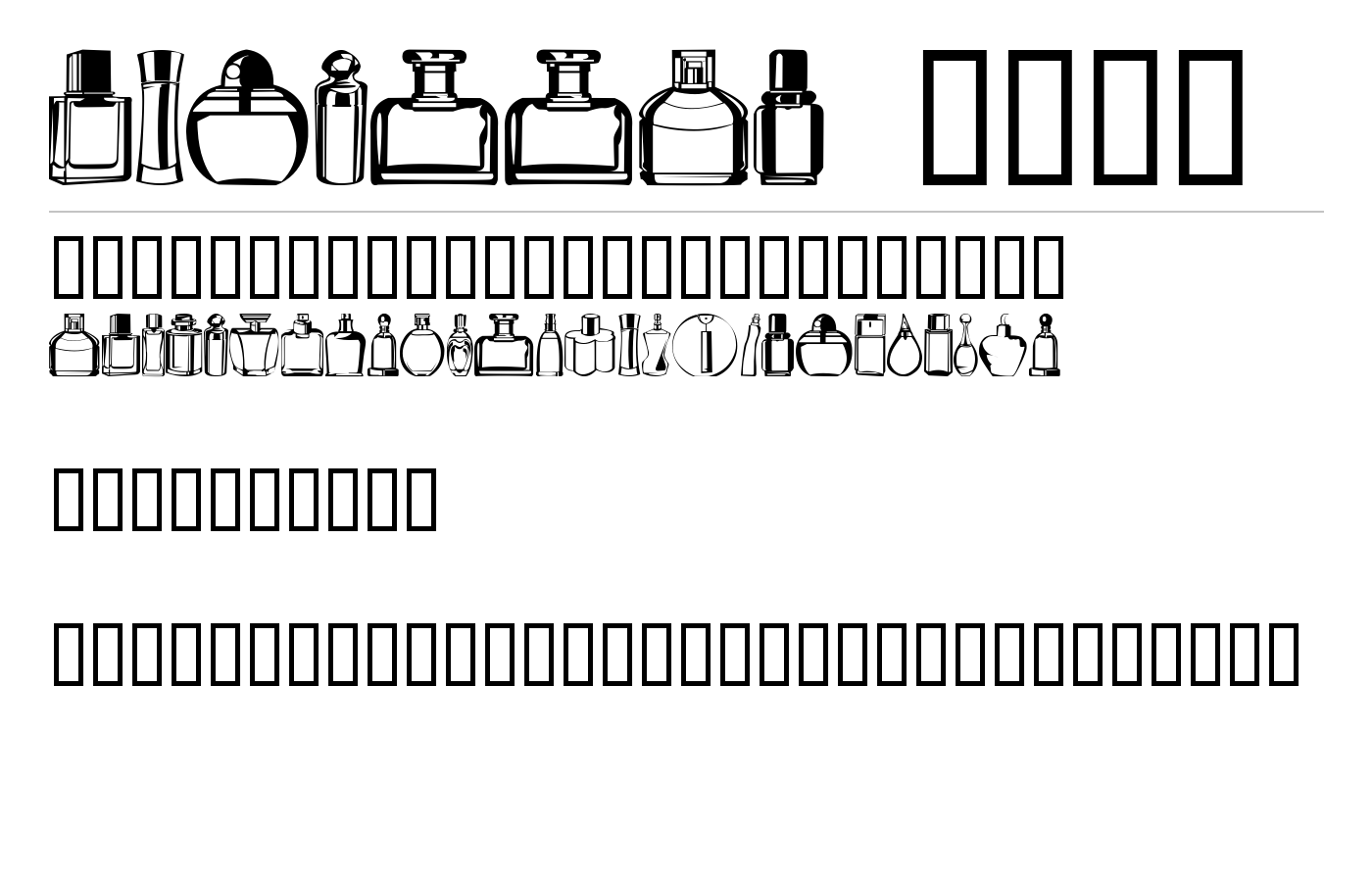
Botellas 2004 is a decorative symbol font featuring intricately detailed bottle illustrations, perfect for adding a vintage or artisanal touch to design projects. Its unique bottle glyphs convey a sense of elegance and nostalgia, making it ideal for branding in cosmetics, perfumes, or boutique packaging where a charming, handcrafted feel is desired. This font works best in creative, eye-catching displays rather than body text, providing a distinctive visual element that sparks curiosity and sophistication.
botellas 2004 Font
About botellas 2004 Font